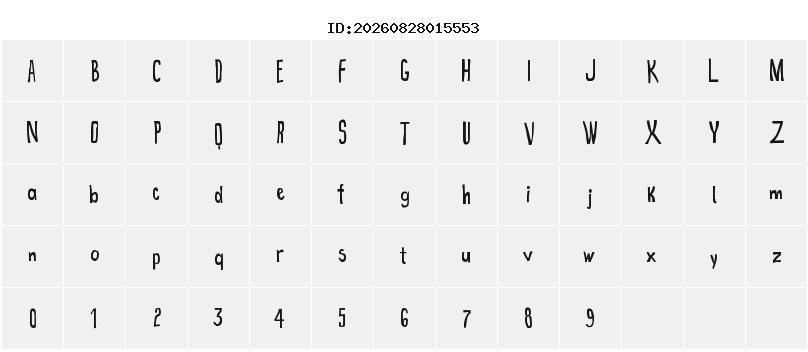
True 2D Preview
• Font Name: True 2D
• Full Font Name: True 2D
• Designer: Galdino Otten
About True 2D.ttf
True 2D.ttf is a modern, elegant sans-serif font designed for ultimate readability and visual harmony. Perfect for branding, headlines, web design, and print materials.